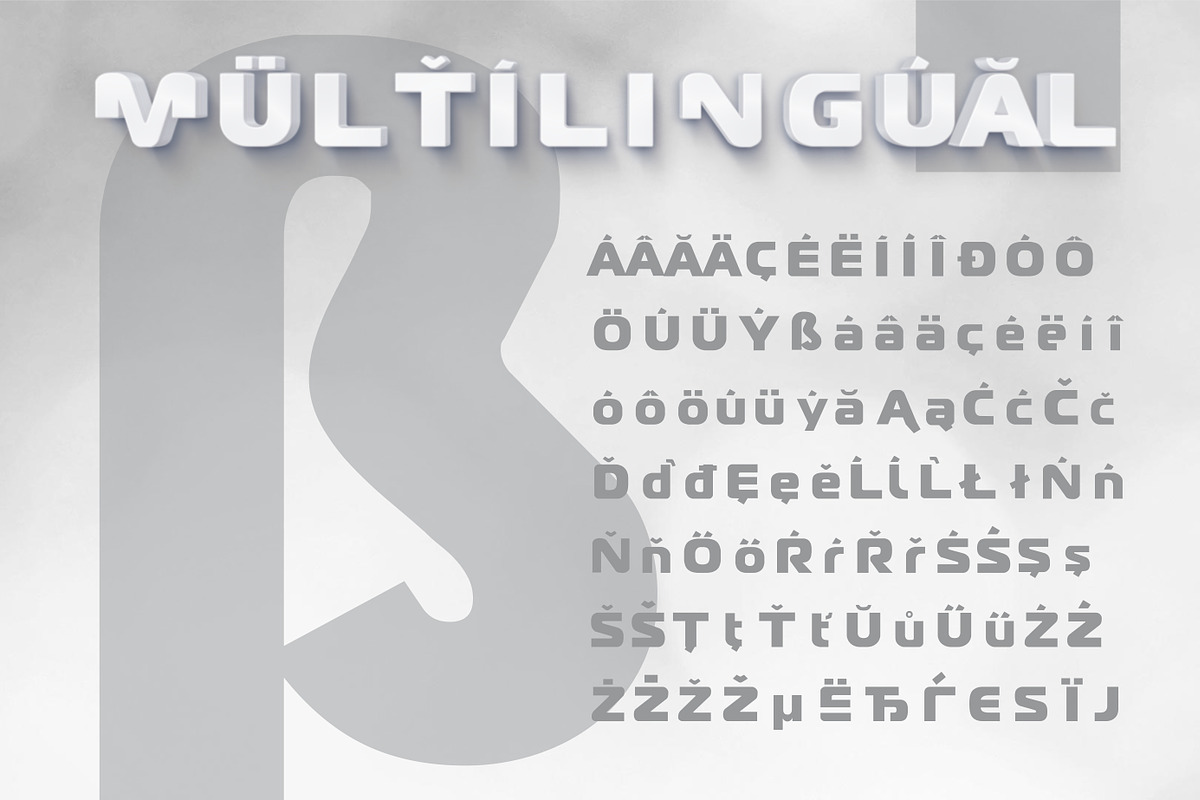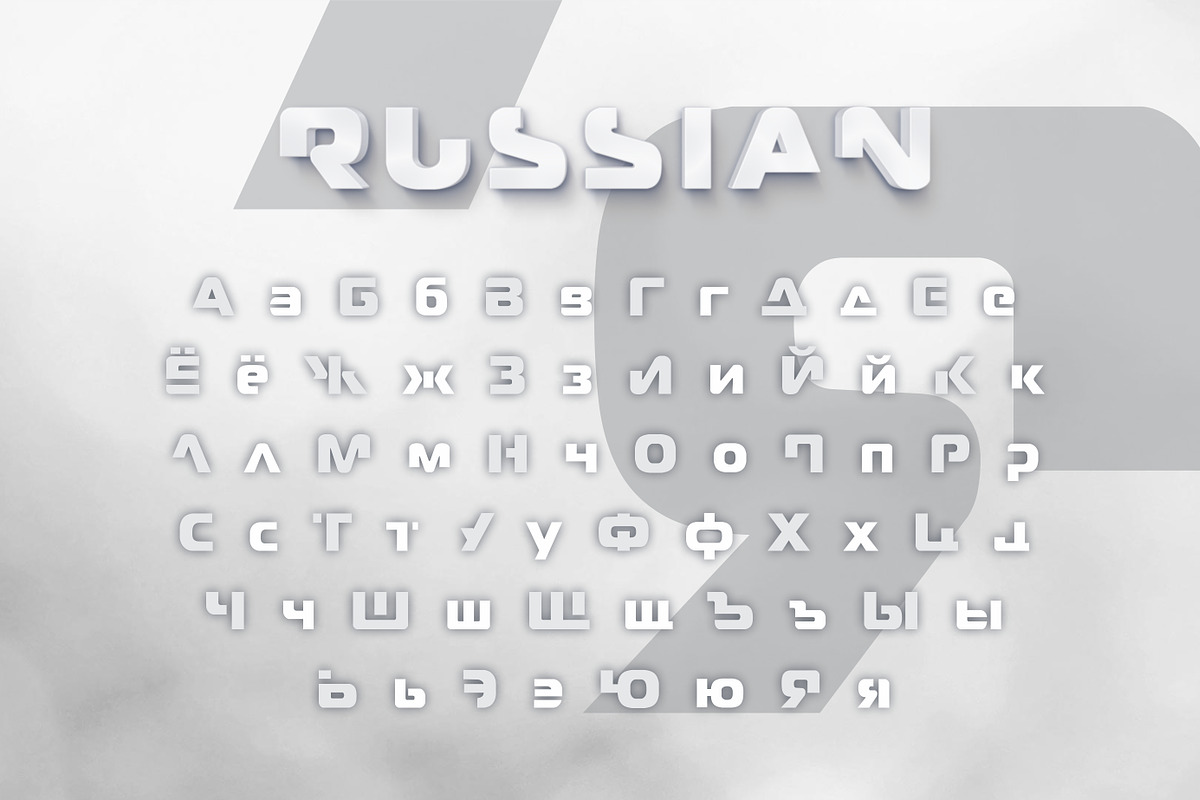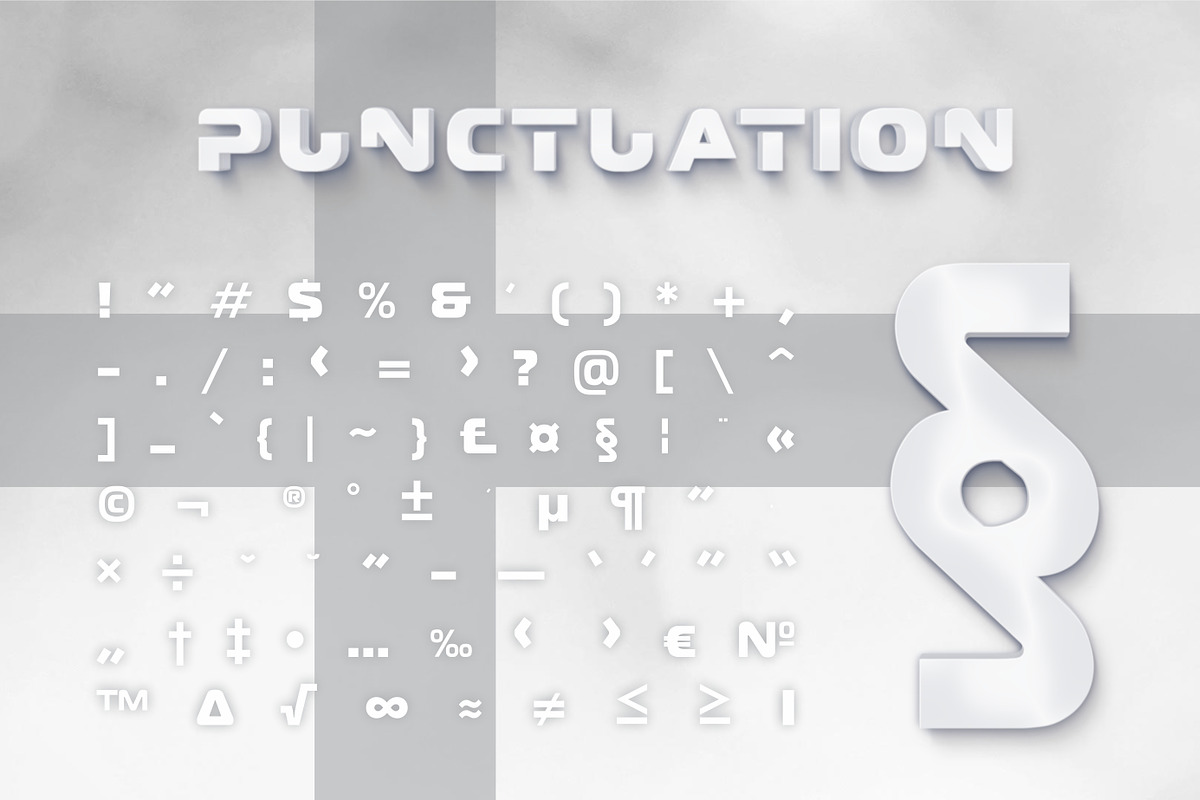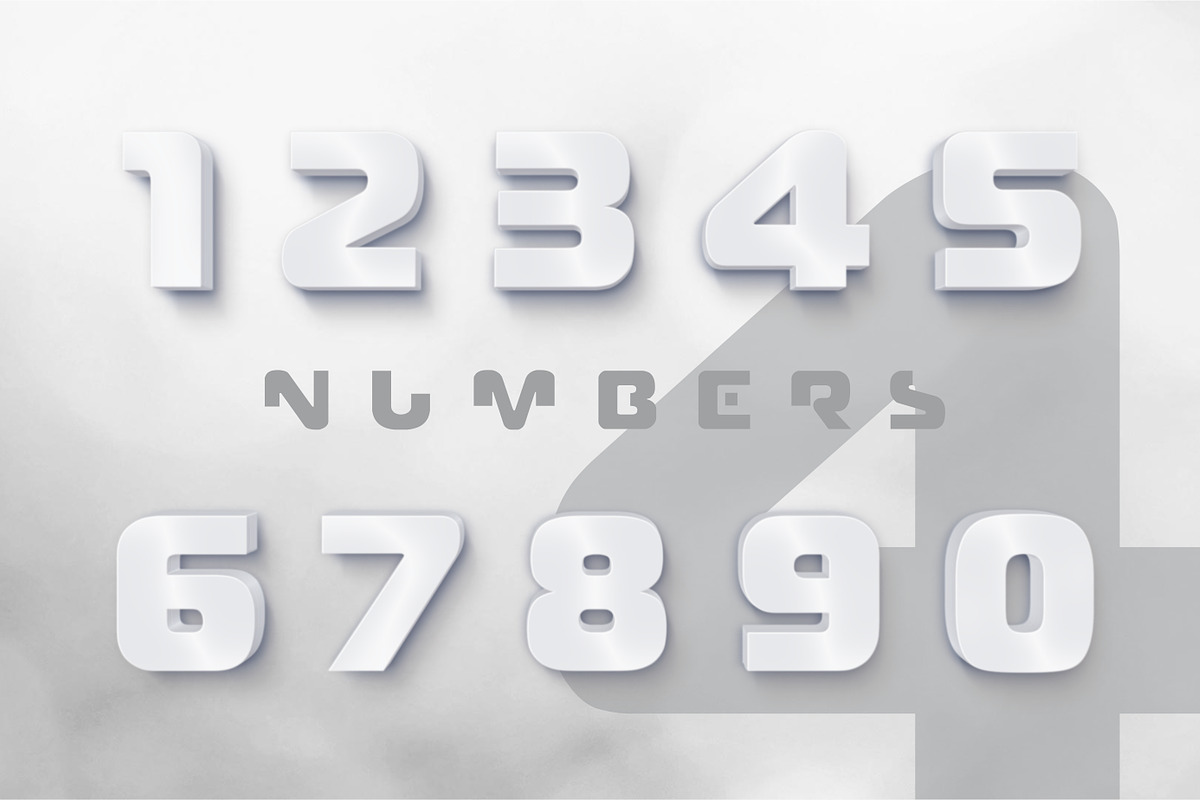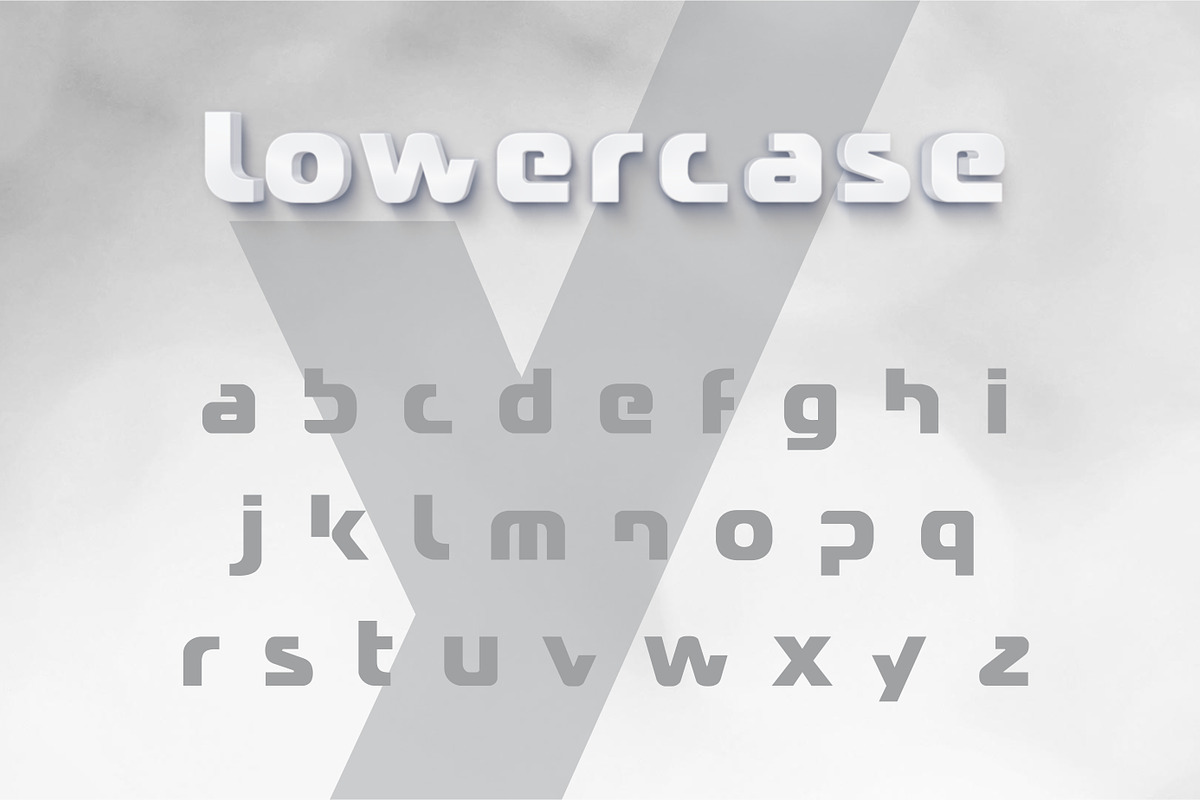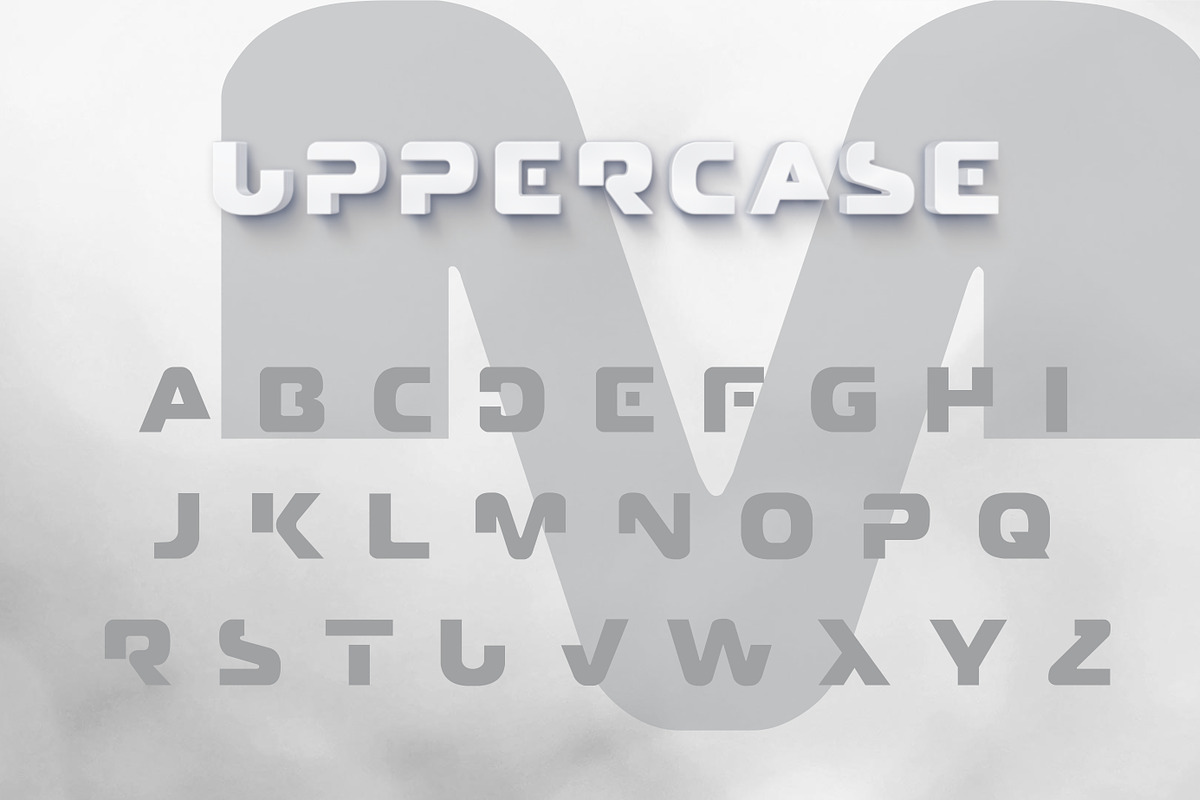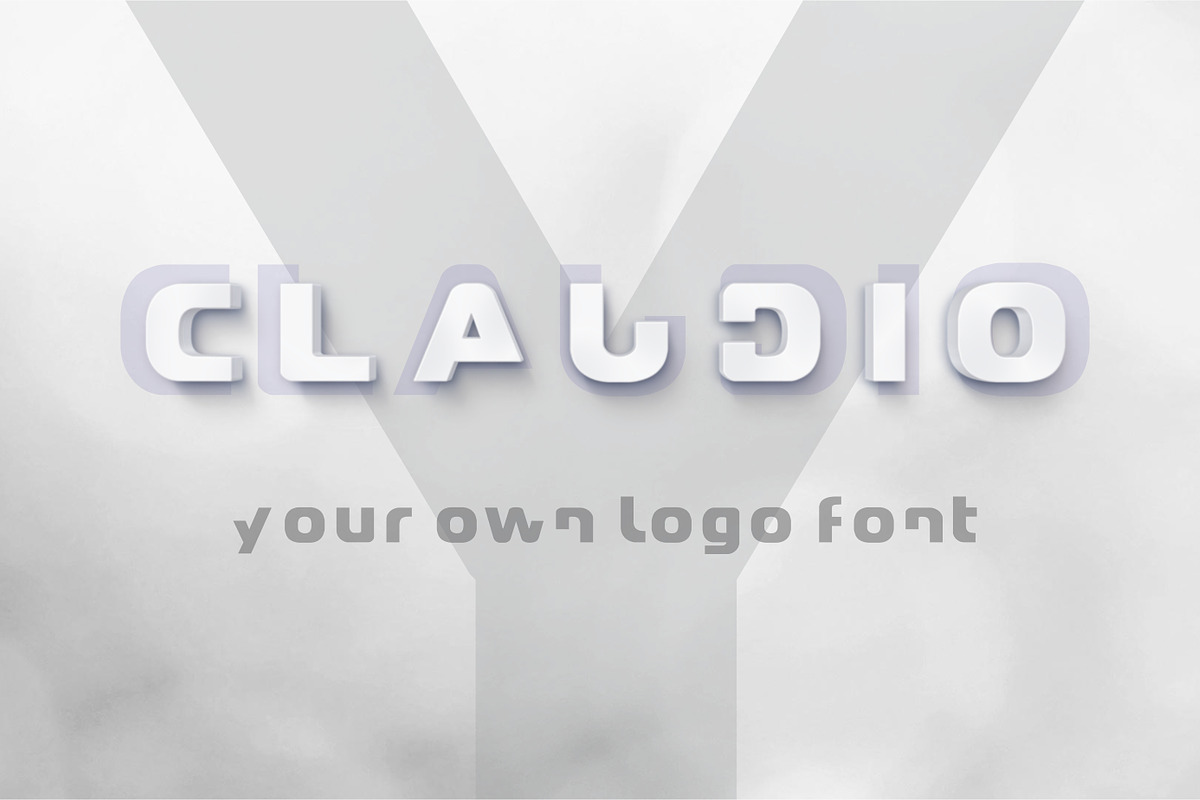
Claudio - Logo design font
Logo design multilingual typeface modern font. English, Russian and other languages multilingual support typeface. This font is ideal for creating a logos – everything you will write will become into attractive logo. Typography is the art and technique of arranging type to make written language legible, readable, and appealing when displayed.
Font have Unicode ranges support:
Mathematical operators
You can use this font for many various design ideas. Type a logo never have been so simple.
- Claudio Logo design multilingual typeface modern font.
- English, Russian and other languages multilingual support typeface.
- Font have Unicode ranges support: Basic Latin Extended Latin Greek Cyrillic General punctuation Currency symbols Letter like symbols Mathema